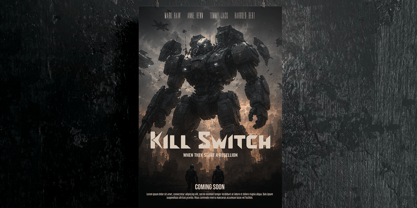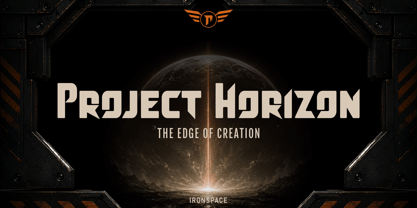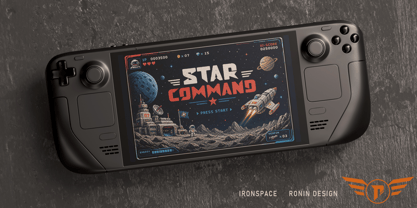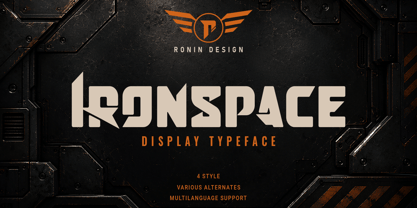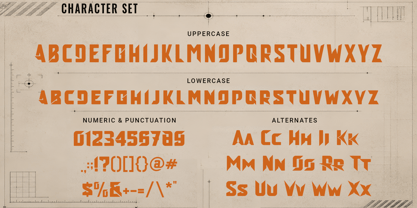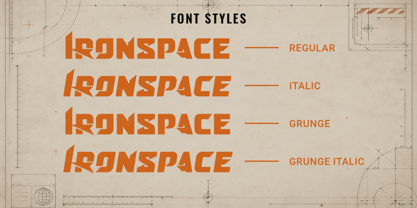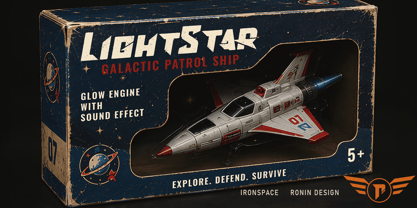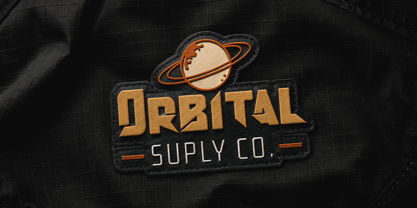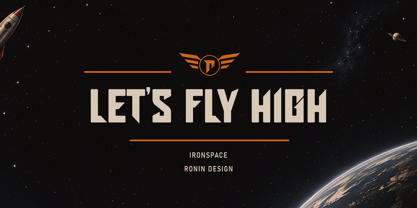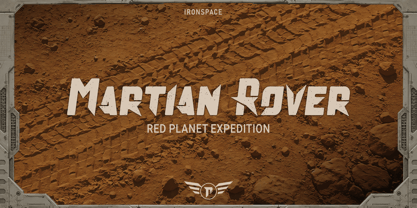
Ironspace
by Ronin Design
The Ironspace Font Family was designed by RoninDesign and published by Ronin Design. Ironspace contains 4 styles and family package options. More about this family
Ironspace is a bold futuristic display typeface inspired by industrial technology, space exploration, and mechanical design. Its sharp geometric construction and distinctive cut-out details create a powerful sci-fi aesthetic while maintaining strong readability.
The family includes Regular, Italic, Grunge, and Grunge Italic, giving you both clean and distressed options for different visual directions. The Italic styles add speed and motion, while the Grunge styles introduce a rugged, weathered character.
Ironspace is ideal for logos, movie titles, posters, album covers, gaming graphics, branding, packaging, apparel, headlines, and sci-fi or industrial-themed designs.
Features :
• Ironspace regular, italic, grunge and grunge italic
• Various alternates
• Ton of glyphs
• Numeric and punctuation
• Multilingual accent
Designers: RoninDesign
Foundry: Ronin Design